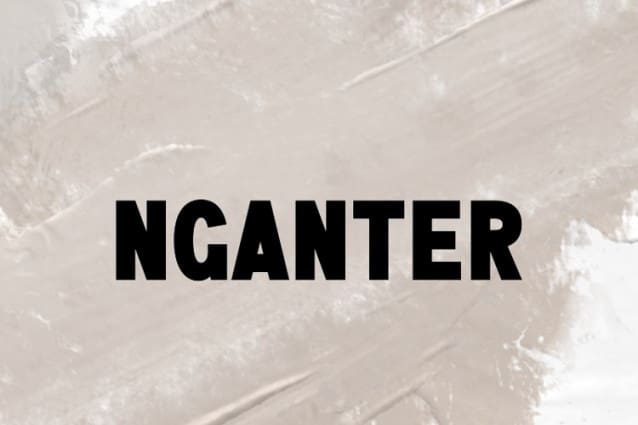
Nganter Font
Nganter Font a bold statement with our latest sans-serif font. With its clean lines and modern appeal, this font is sure to turn heads and leave a lasting impression. Perfect for headlines, logos, and any design that demands attention. It is both functional and stylish, making it a versatile choice for a wide range of design projects.